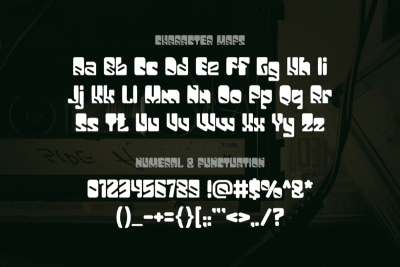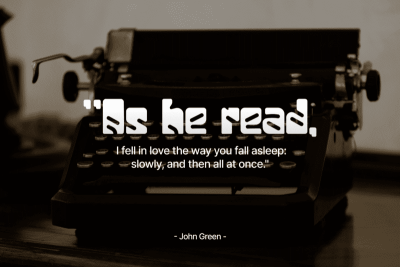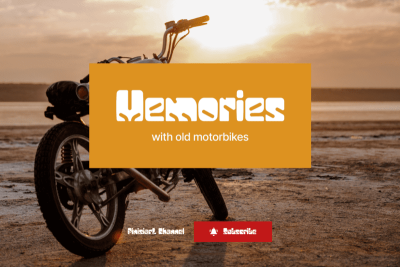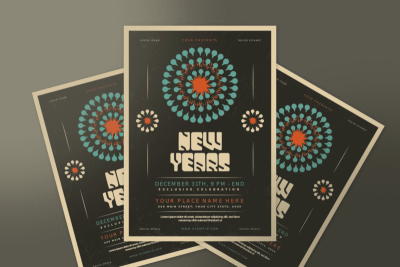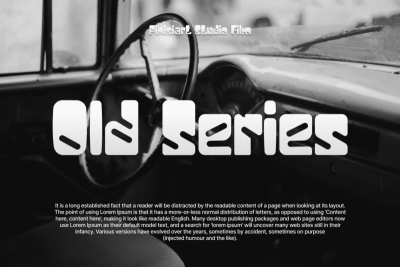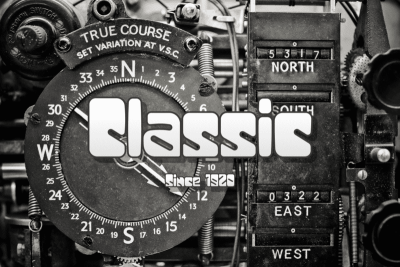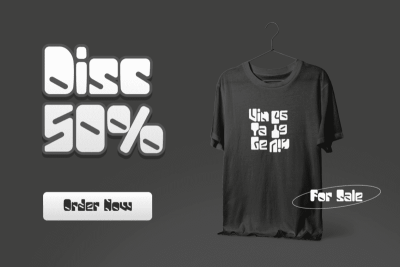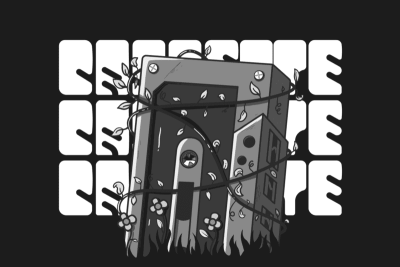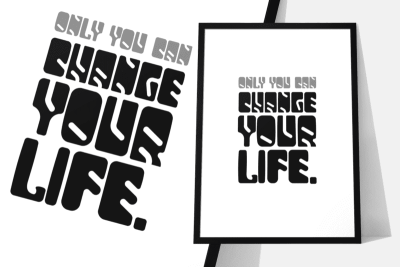
Retro Font Ashoka
Retro Font Ashoka is a charming and versatile typeface. It evokes a sense of nostalgia while offering a modern twist. The font combines classic mid-20th-century typography with contemporary readability. Its bold strokes and rounded edges create a warm, inviting feel. Despite its vintage style, it remains clear and legible in any context. The font stands out in projects that need a retro aesthetic. Whether used in print, digital media, or branding, it adds personality to any design.
The design of Retro Font Ashoka is inspired by mid-century advertising, signage, and branding. It is perfect for projects that want to recreate the vintage look. The font’s smooth curves and geometric shapes allow it to stand out without feeling overwhelming. Its balance of boldness and simplicity makes it flexible for different applications. You can use it in large headlines or smaller body text. The font remains easy to read, no matter the size.
Who Can Benefit from Retro Font Ashoka?
Retro Font Ashoka is ideal for creative professionals, including graphic designers and branding specialists. It’s perfect for projects that focus on retro, nostalgic, or vintage design trends. If you’re designing for a brand, event, or product with a retro theme, this font is a great choice. It is also well-suited for advertising campaigns, promotional materials, and event branding.
Social media influencers and content creators can also benefit from Retro Font Ashoka. Its bold and unique style grabs attention, making it perfect for social media posts, graphics, and videos. The font’s retro vibe works well with nostalgic pop culture references, making it ideal for creating engaging content.
Artists and musicians will find the font’s useful for album covers, posters, and promotional materials. If you want to give your work a vintage feel, this font will help bring your project to life. It’s also perfect for anyone working in industries that celebrate past decades, like fashion and music.
In conclusion, Retro Font Ashoka is a must-have for anyone in the creative industry. It adds timeless style to designs, making them stand out. Its vintage charm and modern appeal offer endless possibilities for branding, social media content, and more.